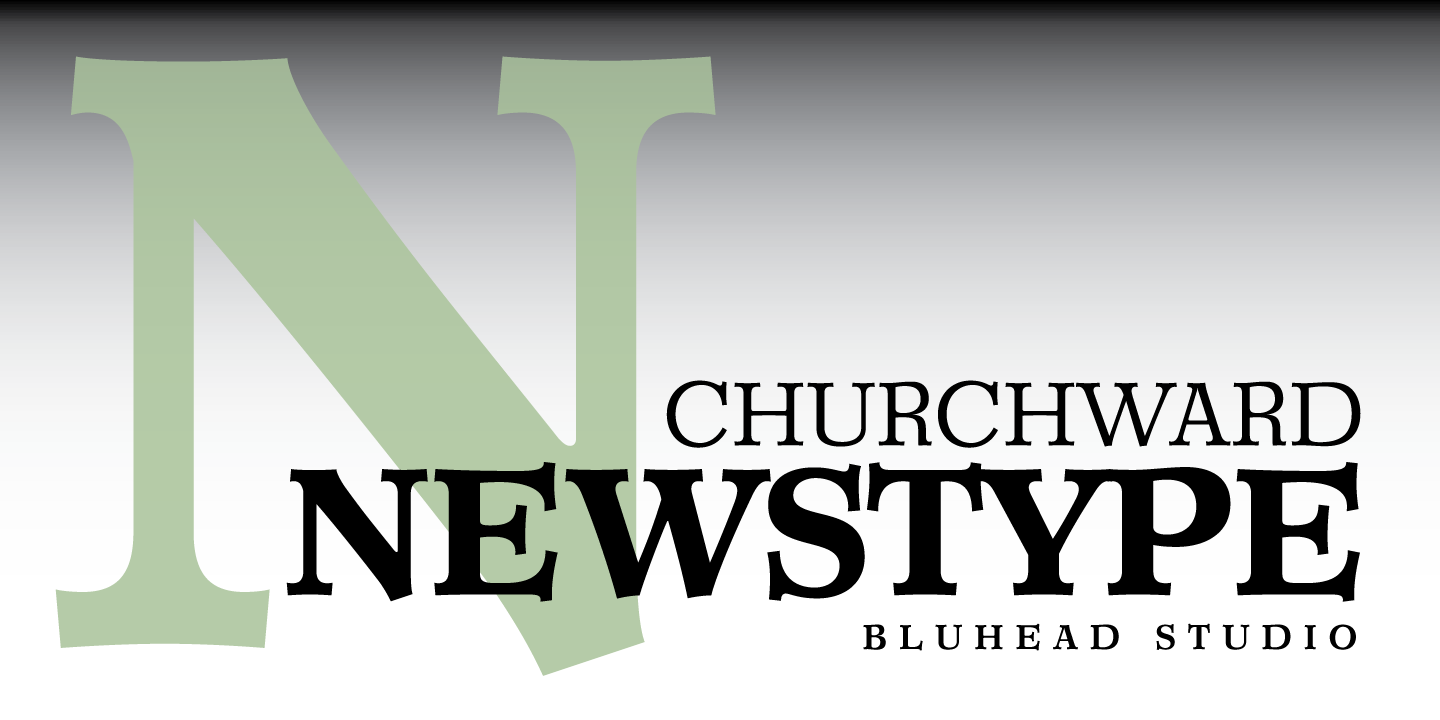
Looking for a bold, attention-grabbing typeface with a vintage newspaper feel? The Churchward Newstype Font Free Download delivers a striking retro aesthetic, perfect for headlines, posters, and branding projects. Inspired by classic print typography, this font adds a touch of nostalgia while maintaining modern readability.
Why Choose Churchward Newstype Font?
Churchward Newstype stands out with its high-contrast letterforms and dramatic serifs, making it ideal for projects that demand a bold statement. Whether you're designing a vintage-inspired logo, editorial layout, or promotional material, this font brings character and authority to your work.
Key Features of Churchward Newstype Font
Bold & Decorative Style – Perfect for eye-catching headlines and logos.
Vintage Newspaper Vibe – Adds a classic, editorial touch to designs.
Strong Readability – Works well in large sizes for posters and banners.
Unique Letterforms – Features distinctive curves and sharp serifs for added flair.
Best Uses for Churchward Newstype Font
This font excels in designs that need a bold, retro-inspired look, such as:
Vintage Branding – Ideal for logos, packaging, and merchandise.
Editorial Design – Great for magazine covers and newspaper-style layouts.
Event Posters & Flyers – Commands attention with its dramatic presence.